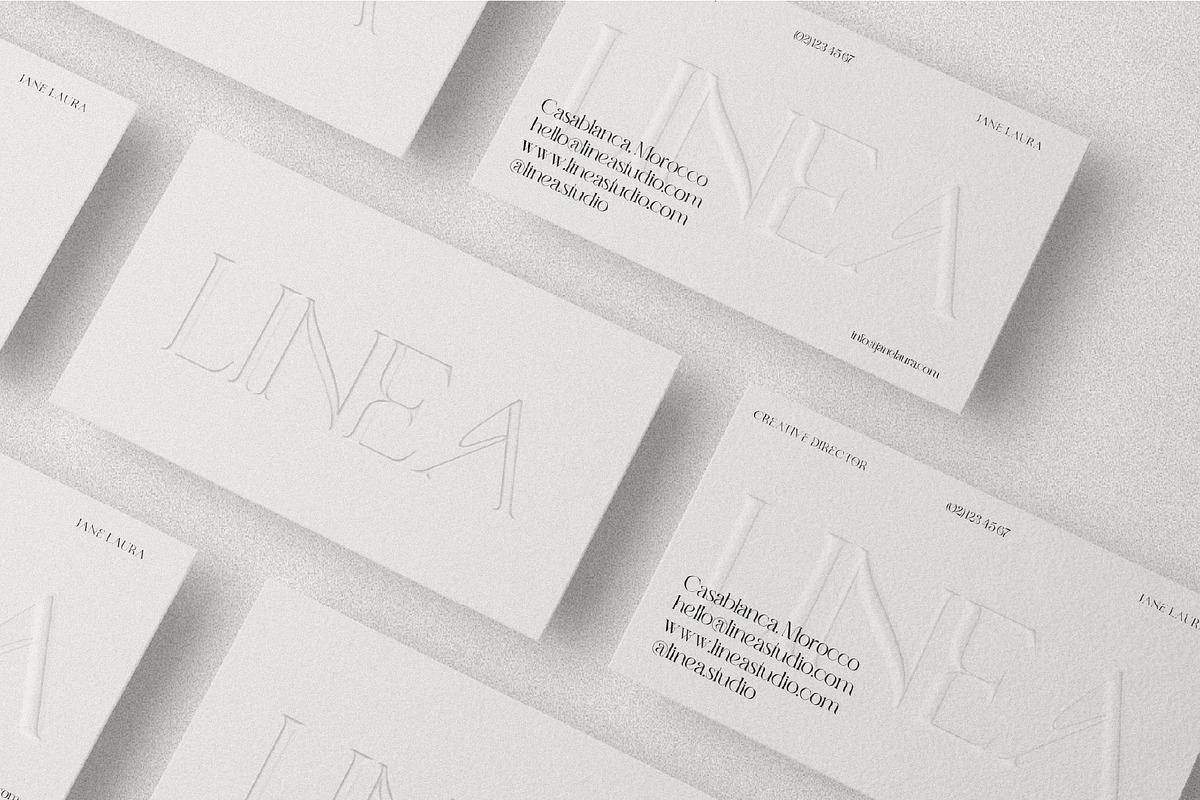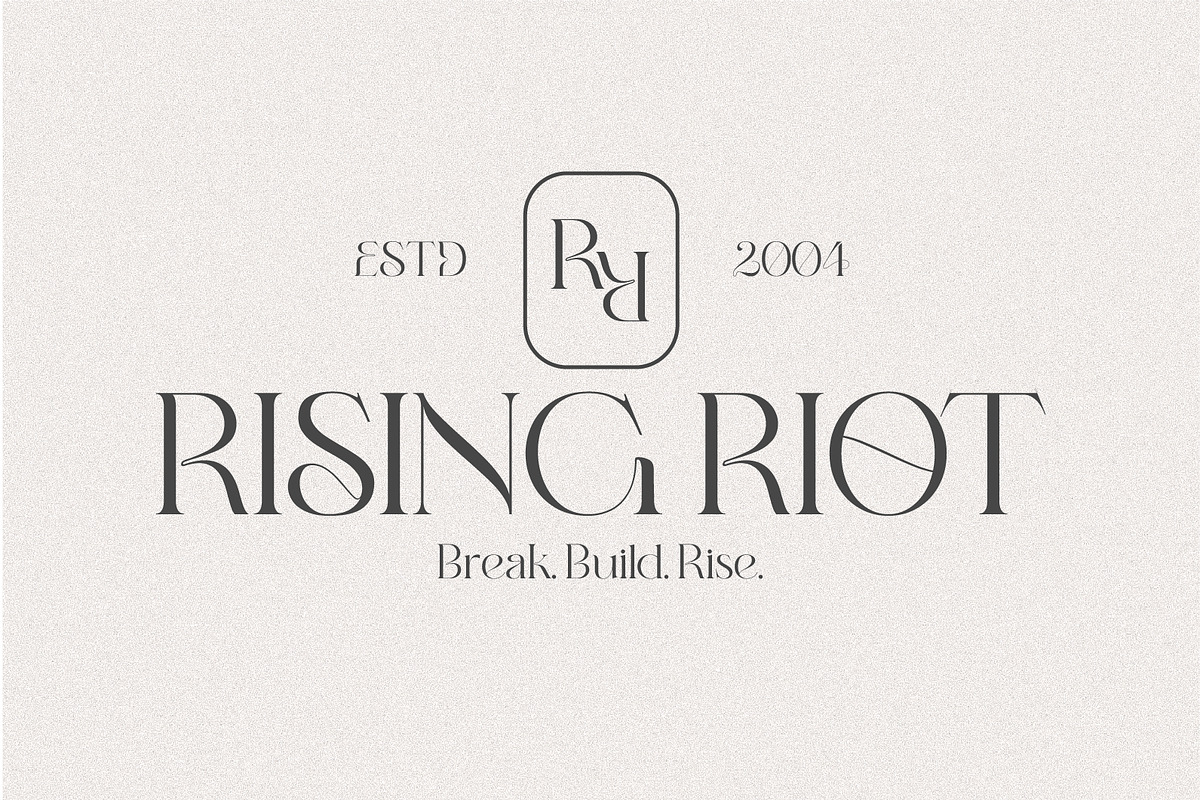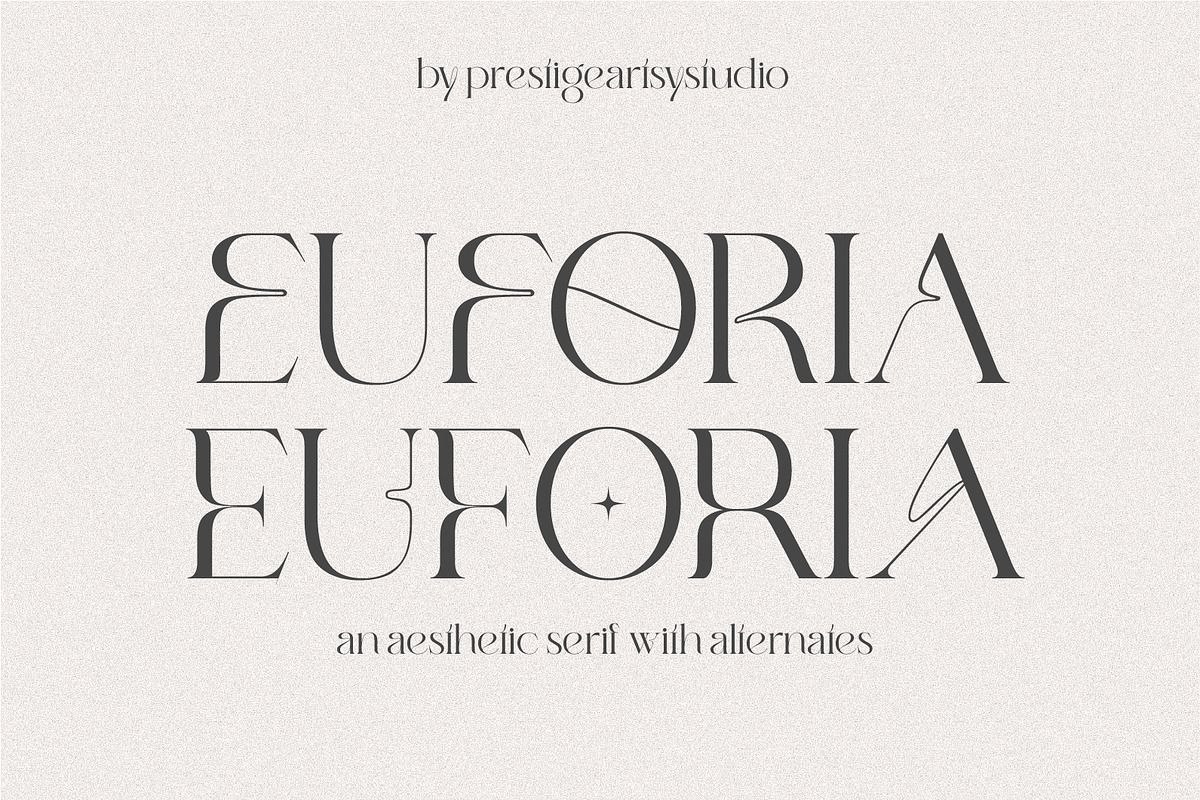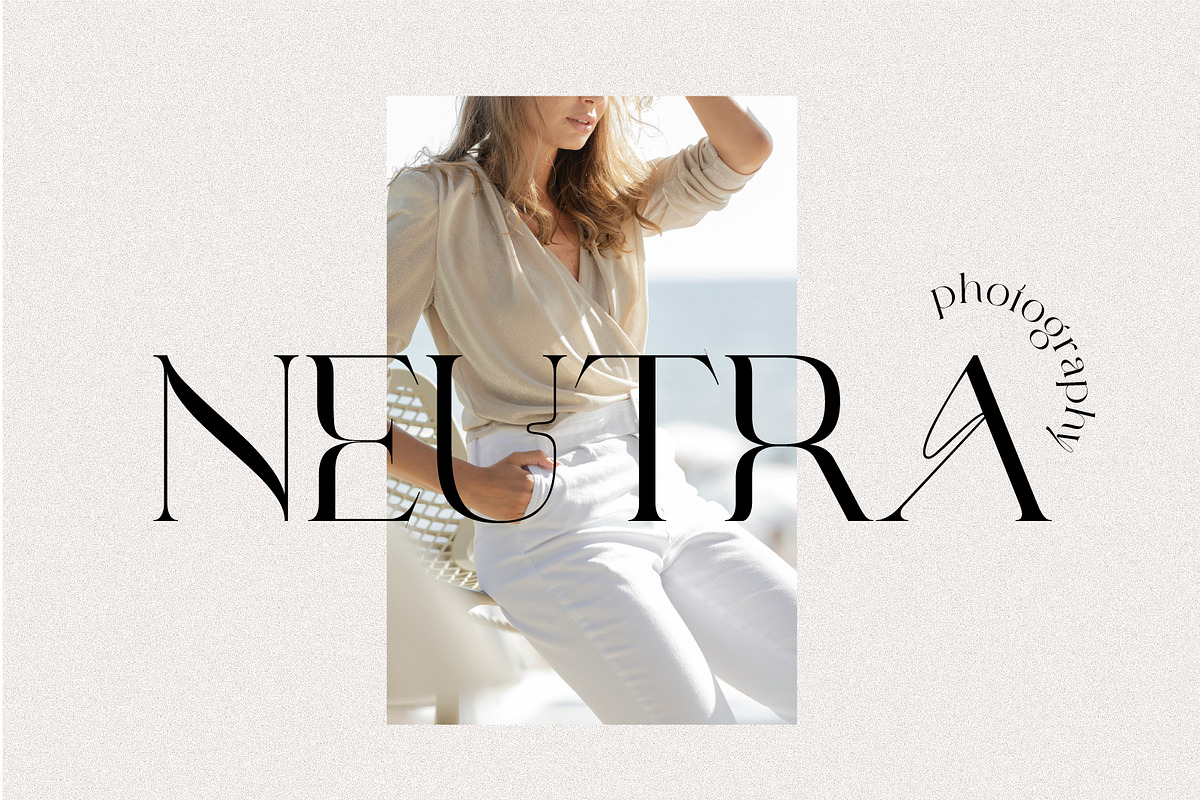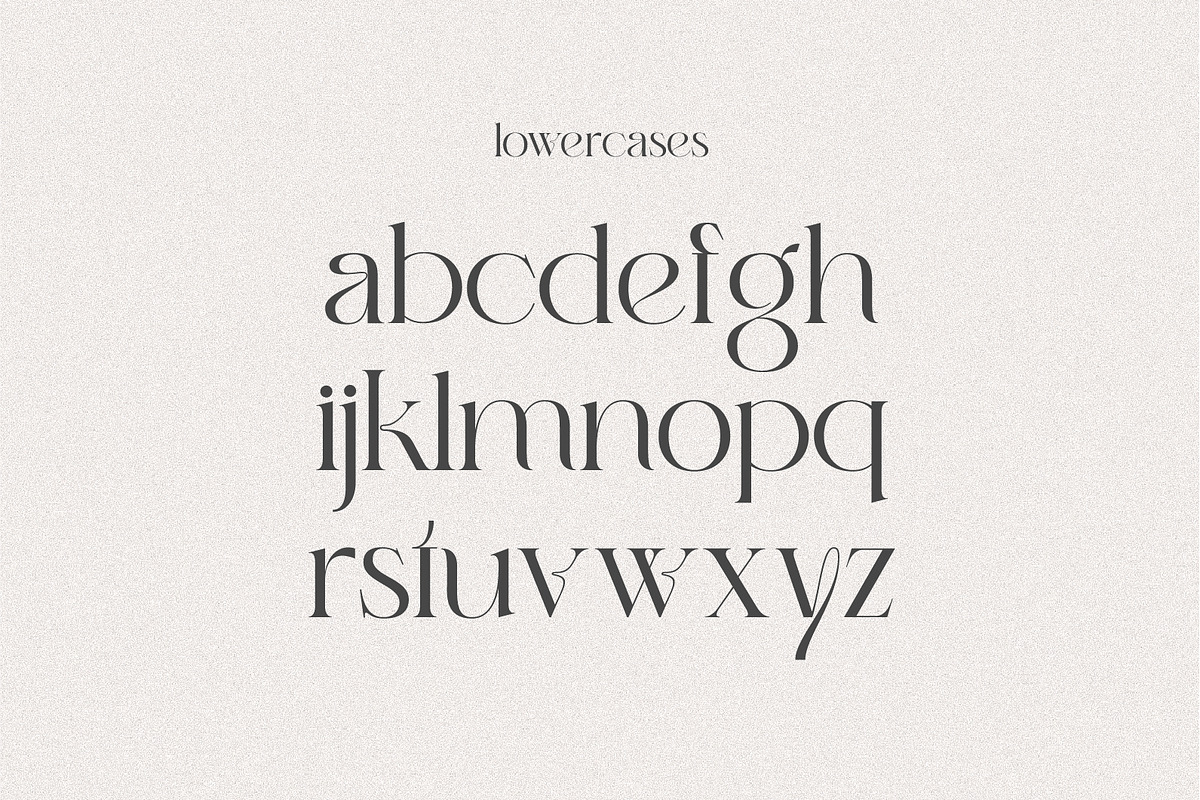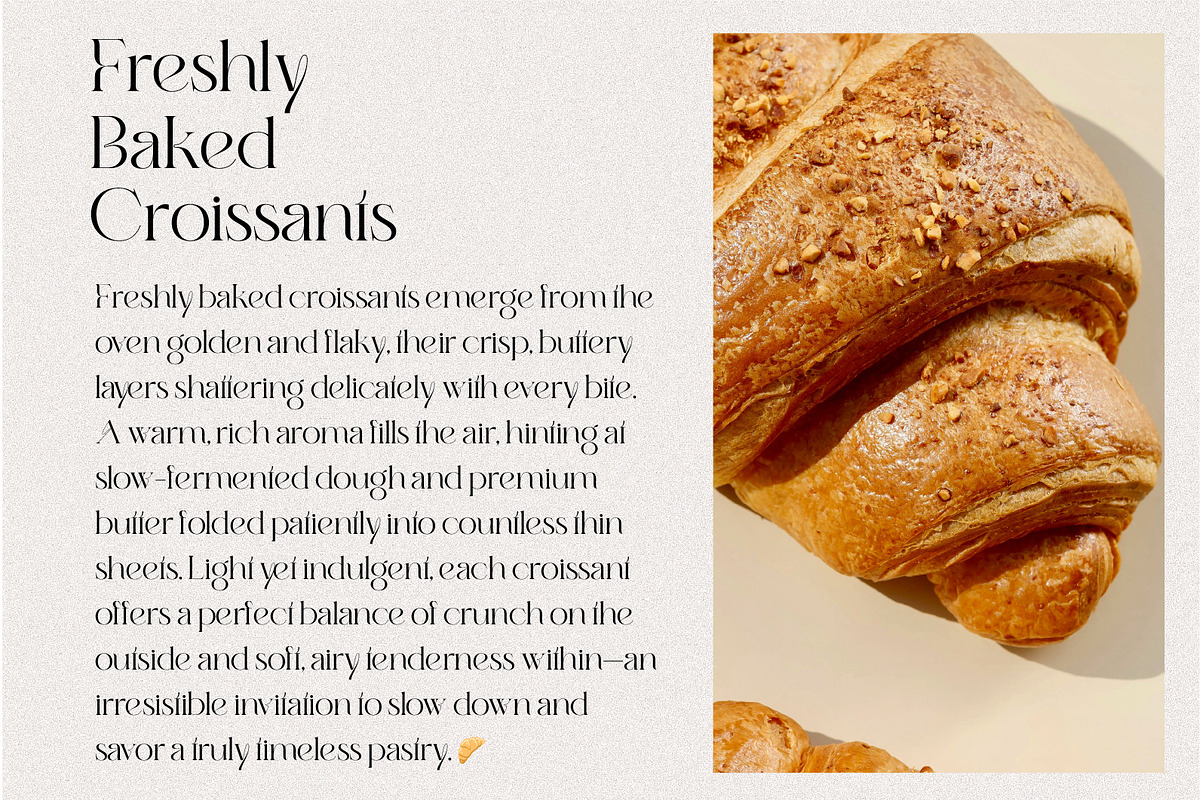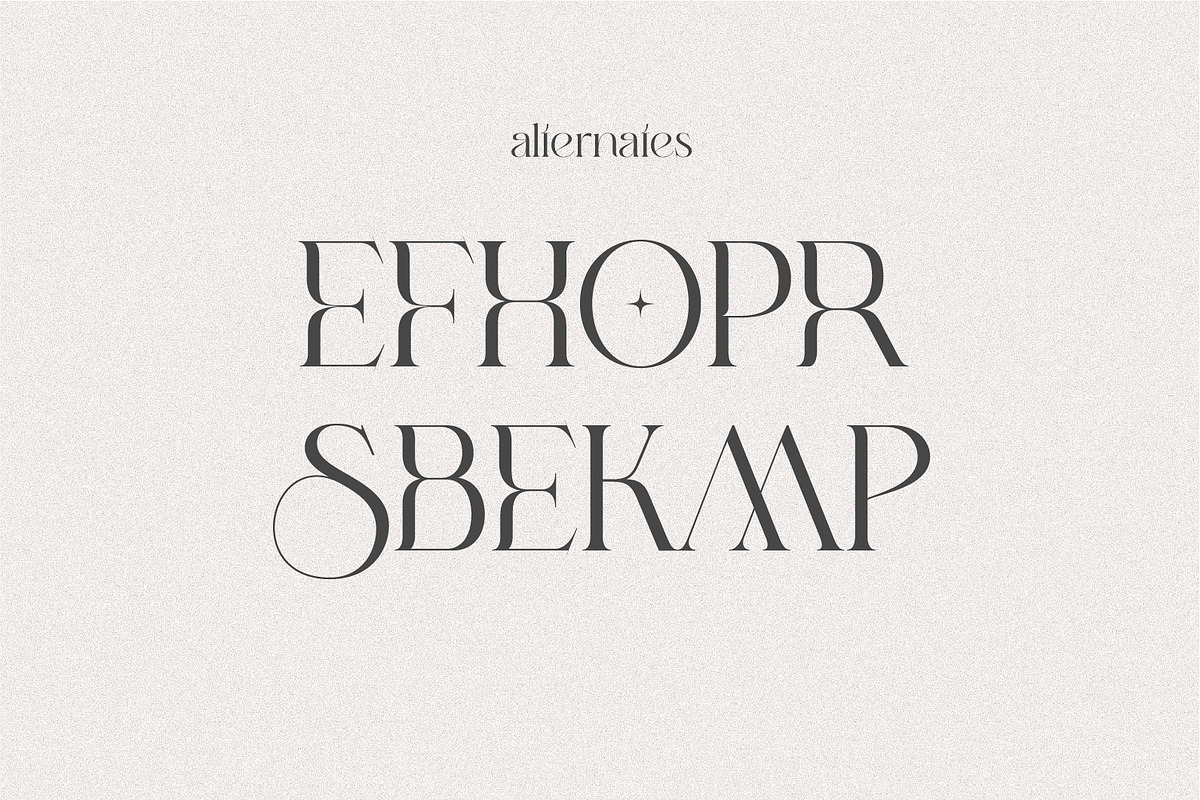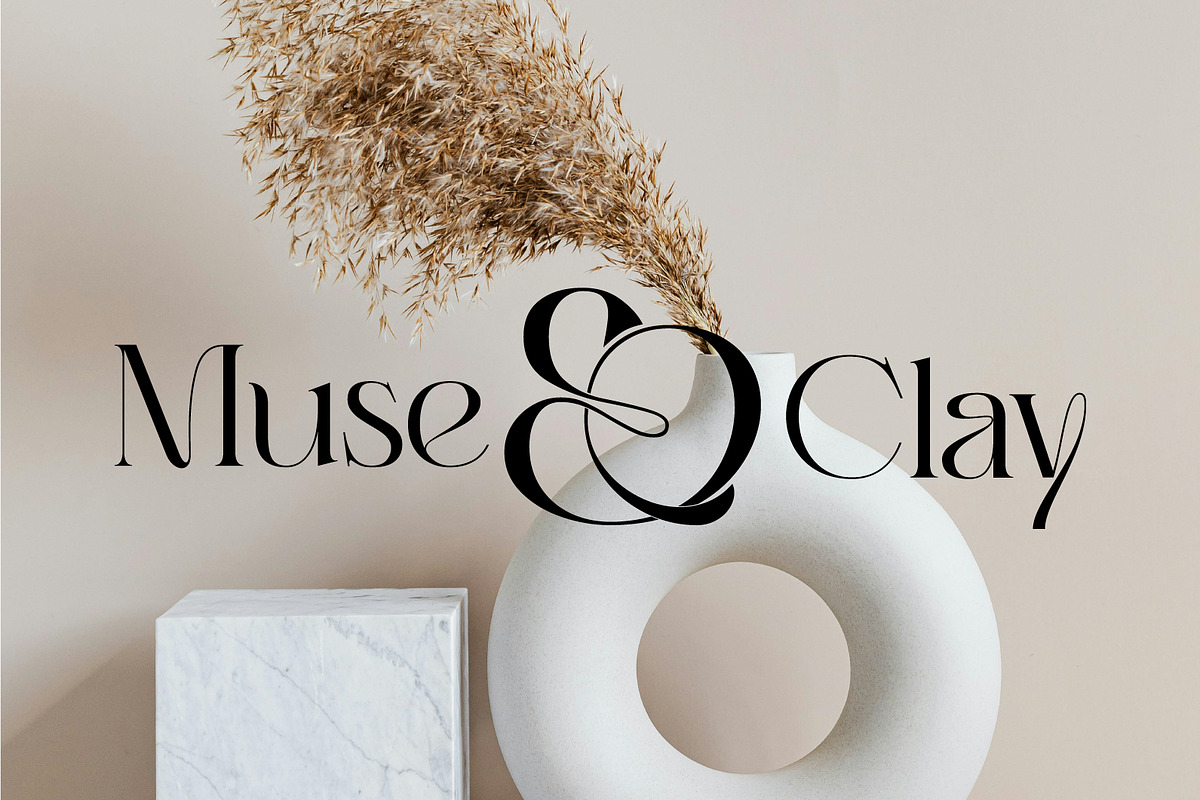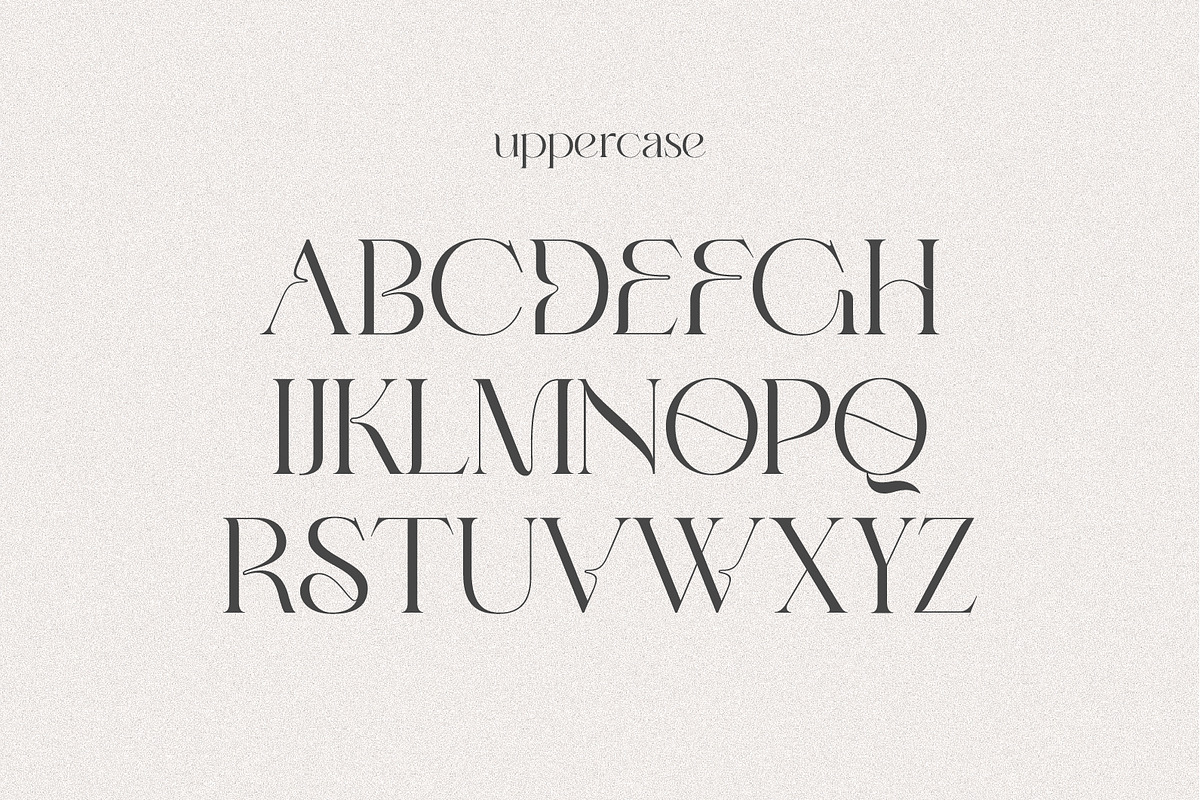
EUFORIA — An Aesthetic Serif
Euforia is an elegant modern serif font designed to bring refinement, warmth, and expressive beauty to your designs. With its smooth curves, balanced contrast, and graceful forms,
Euforia delivers a sophisticated yet contemporary look that feels luxurious without being overstated.
Perfect for branding, fashion projects, logos, editorial layouts, packaging, wedding stationery, and social media, Euforia adapts effortlessly to both print and digital use. Carefully crafted alternates allow you to create unique wordmarks and custom typography with ease, adding personality and flow to every composition.
This font includes multilingual support, making it suitable for international projects and professional use across languages.
- Stylistic alternates
Euforia is ideal for designers, creatives, and brands looking for a timeless serif with a modern, expressive soul.